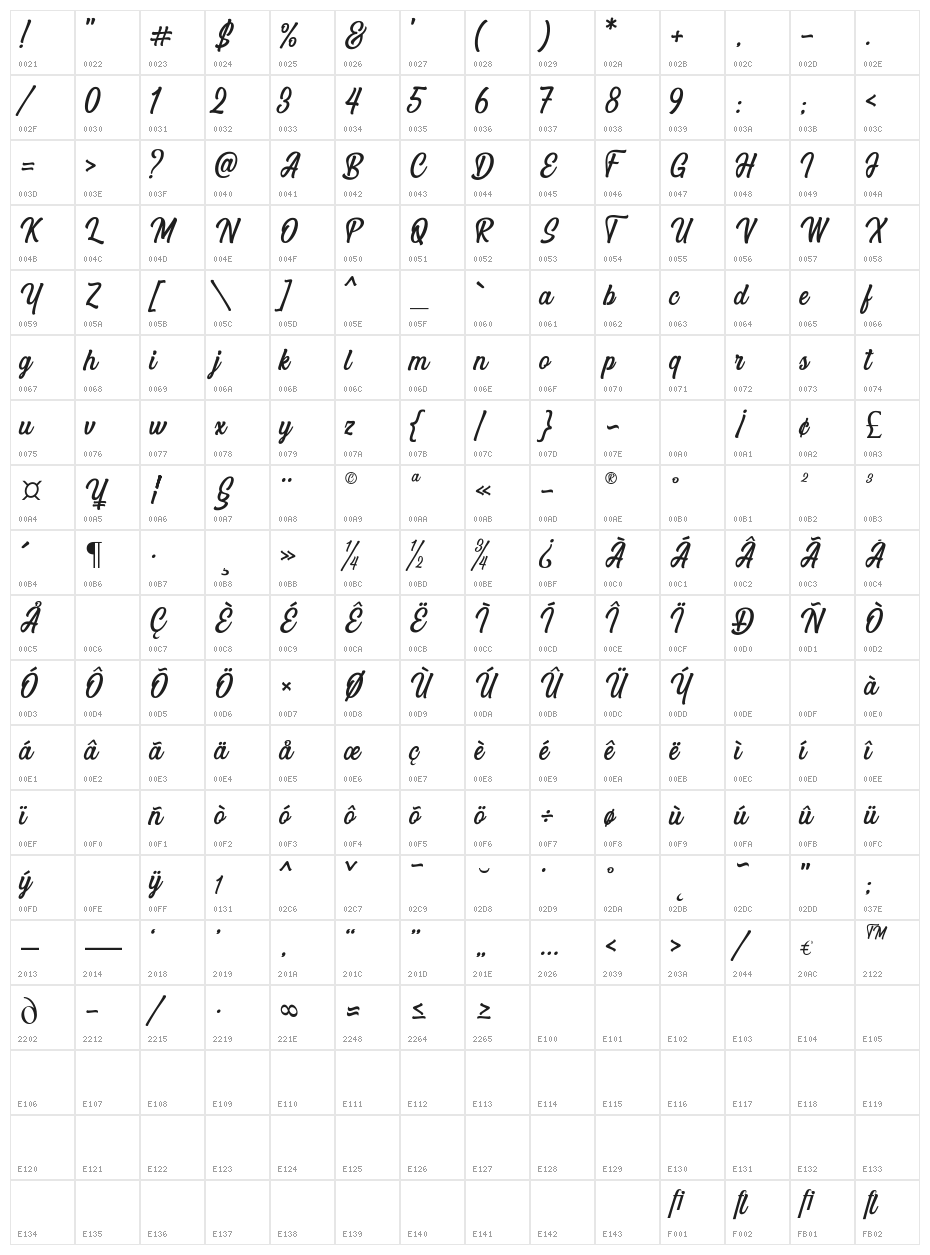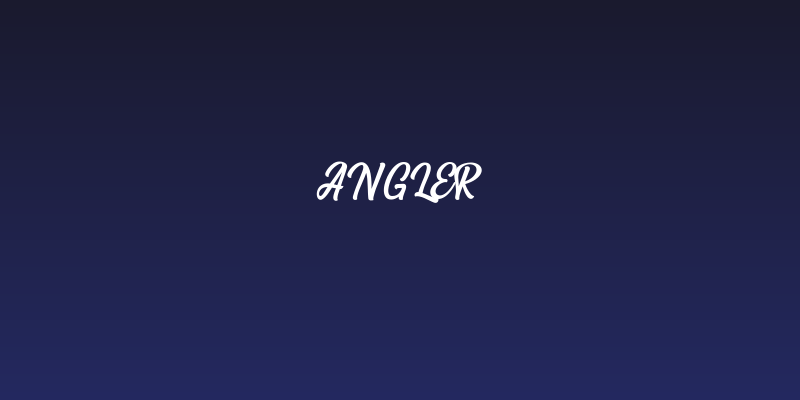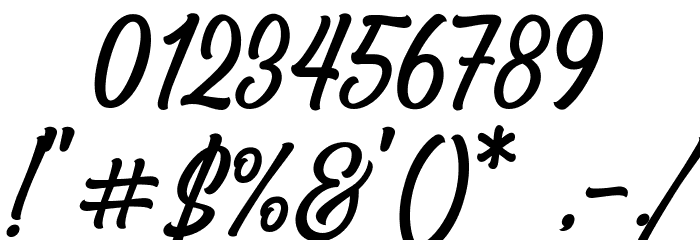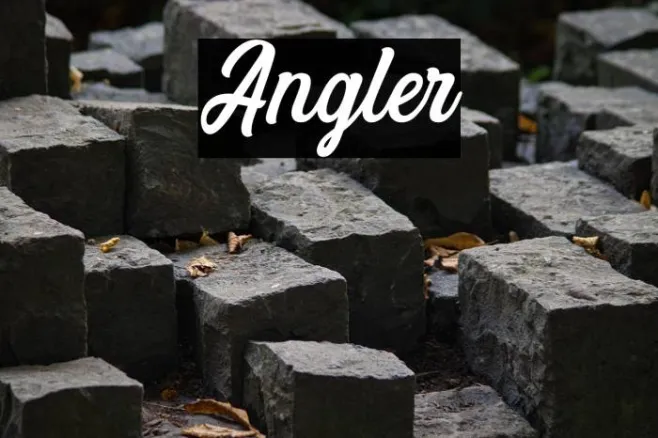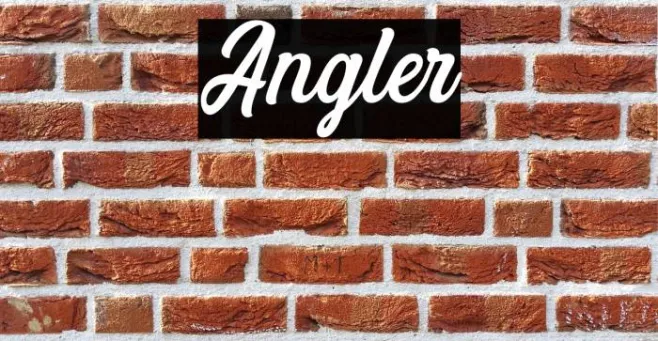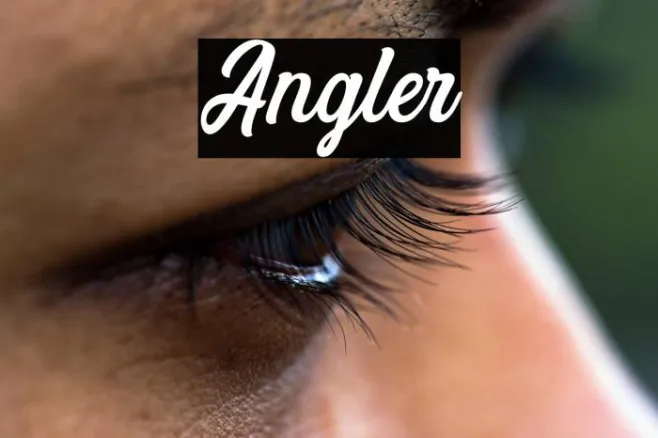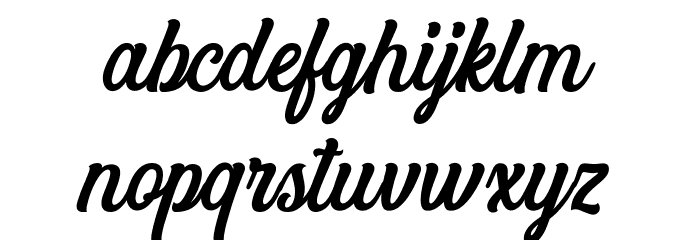
Angler Font
Angler Description
This font features a flowing, cursive style with smooth, connected strokes that give it a handwritten appearance. The uppercase letters are bold and slightly slanted, creating a dynamic and elegant look. The lowercase letters maintain a consistent flow, enhancing readability while preserving the script's artistic flair. Numbers and special characters are designed to match the overall style, ensuring uniformity across all elements. The font's design is versatile, making it suitable for a variety of creative applications.